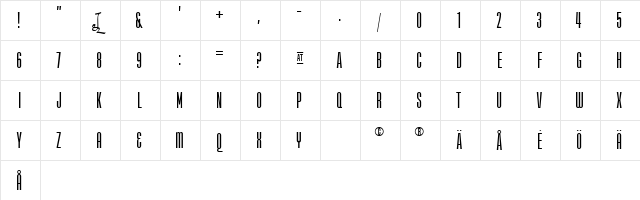
Executive Producer Regular
Design Context for Executive Producer Typeface
Executive Producer is a composed and adaptable typeface that performs quietly and consistently across a wide range of design contexts.